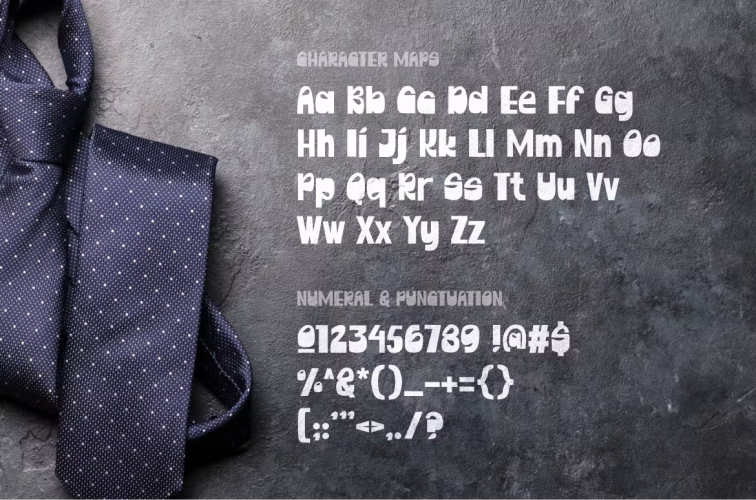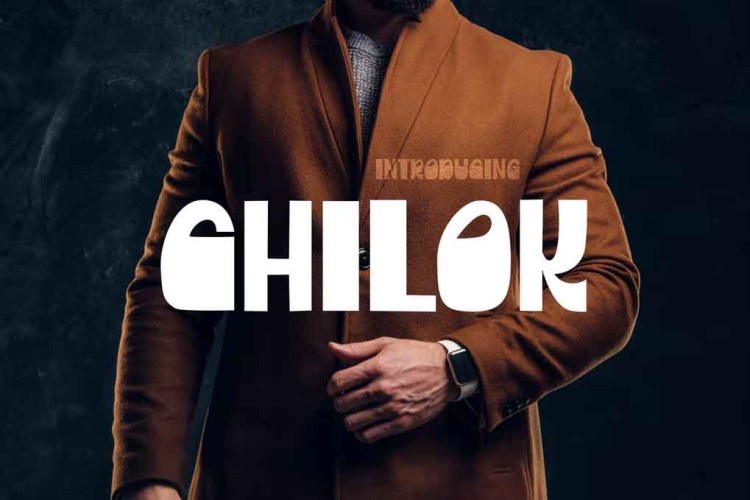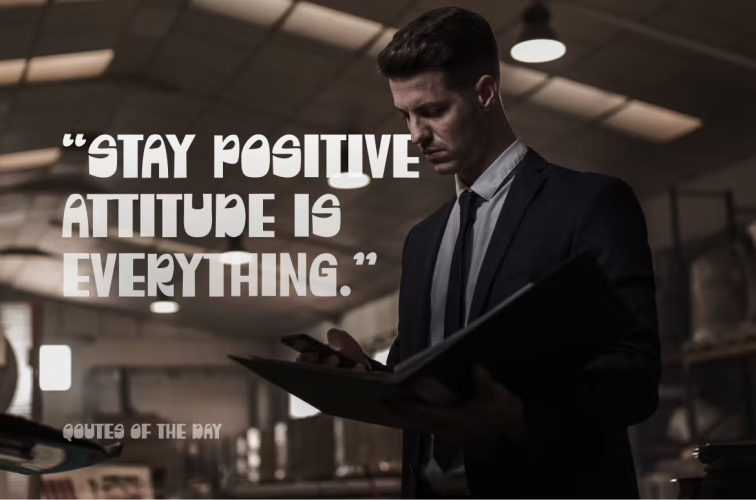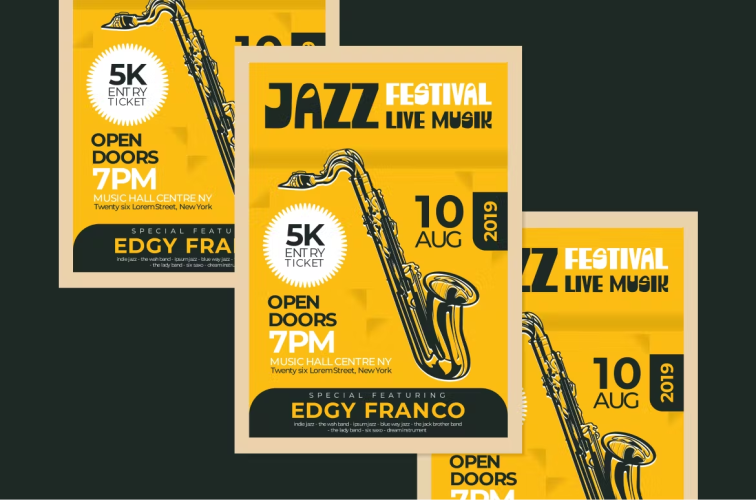
CHILOK Elegant Display Font
CHILOK – Elegant Display Font
Heavy at the bottom and looking quite elegant. CHILOK will be putting more weight to the word it is written.
Suit perfectly for mature and encouraging themes books market, economic poster, stationary, school supplies font, youtube covers, youtube thumbnails, social media page covers and so on…
Where CHILOK Elegant Display Font works best
CHILOK Elegant Display Font stays legible at small sizes, which makes it a strong choice for navigation, buttons and dashboards in web design and app interfaces.
Clean sans serifs like CHILOK Elegant Display Font are the default language of SaaS, fintech and product branding.
What is CHILOK Elegant Display Font good for?
CHILOK Elegant Display Font is a Sans Serif Fonts typeface tagged Display, Elegant, Poster, Sans Serif. It works well for headlines, logos, posters, social media graphics and branding projects that need a distinctive sans serif fonts look.